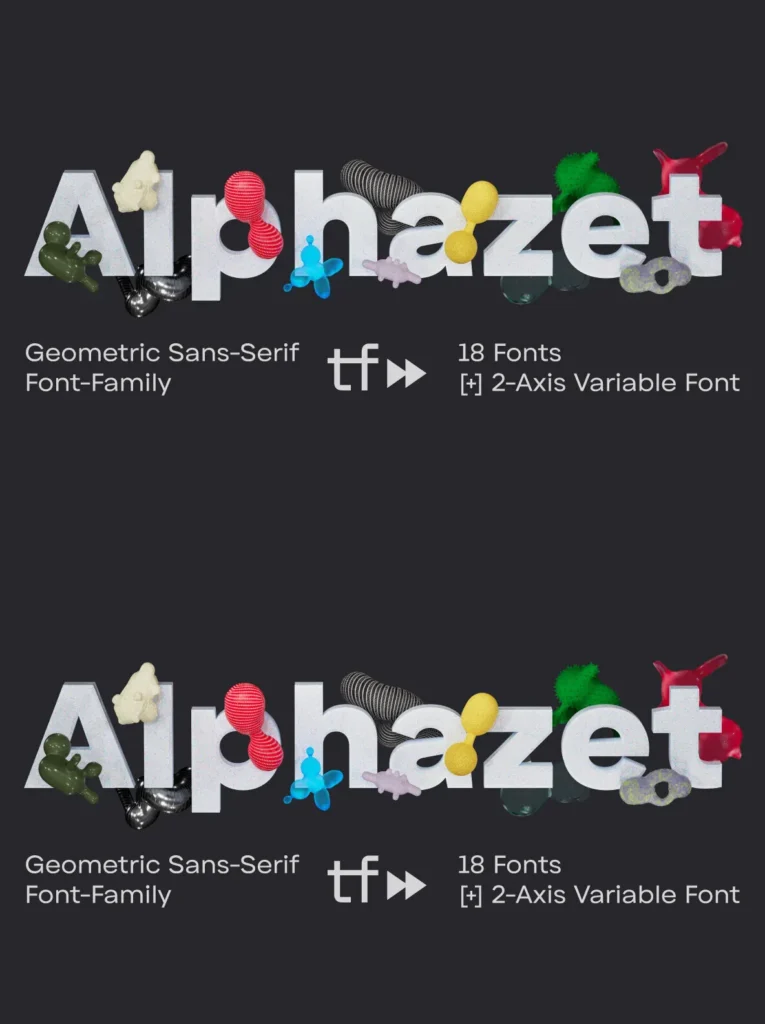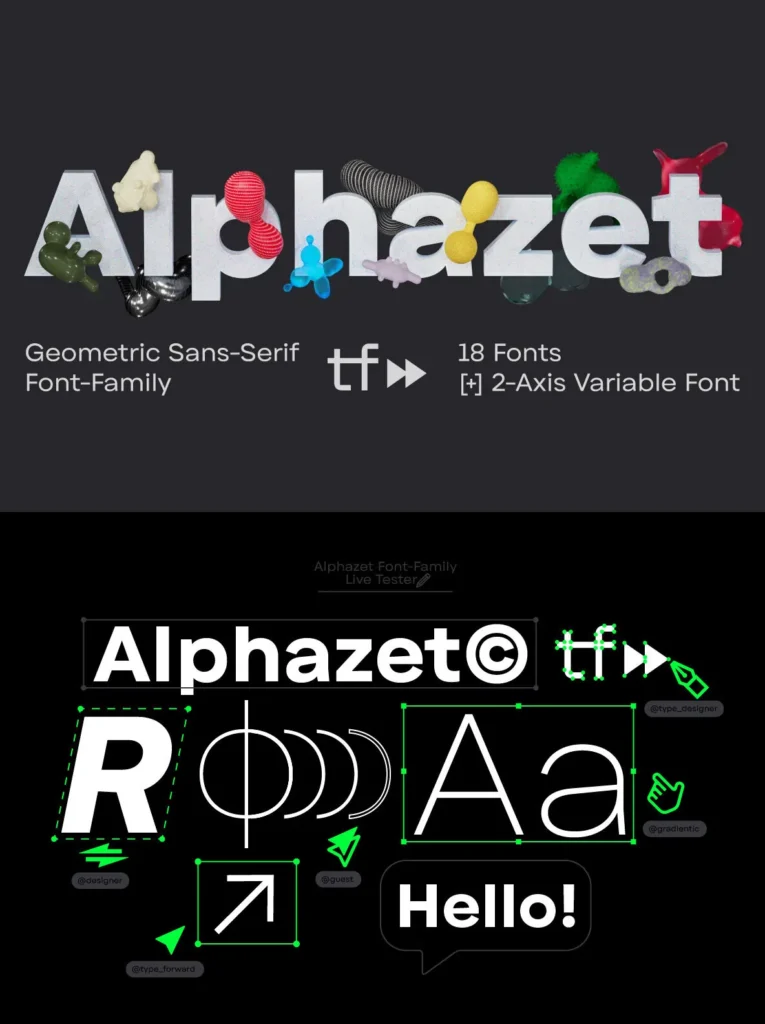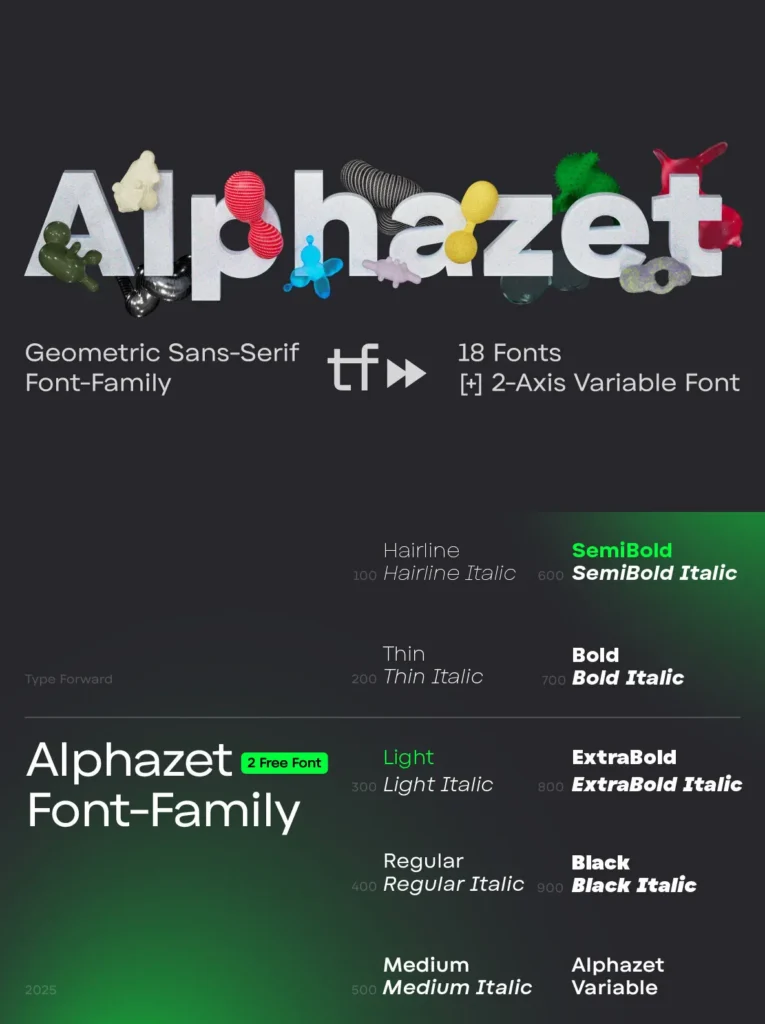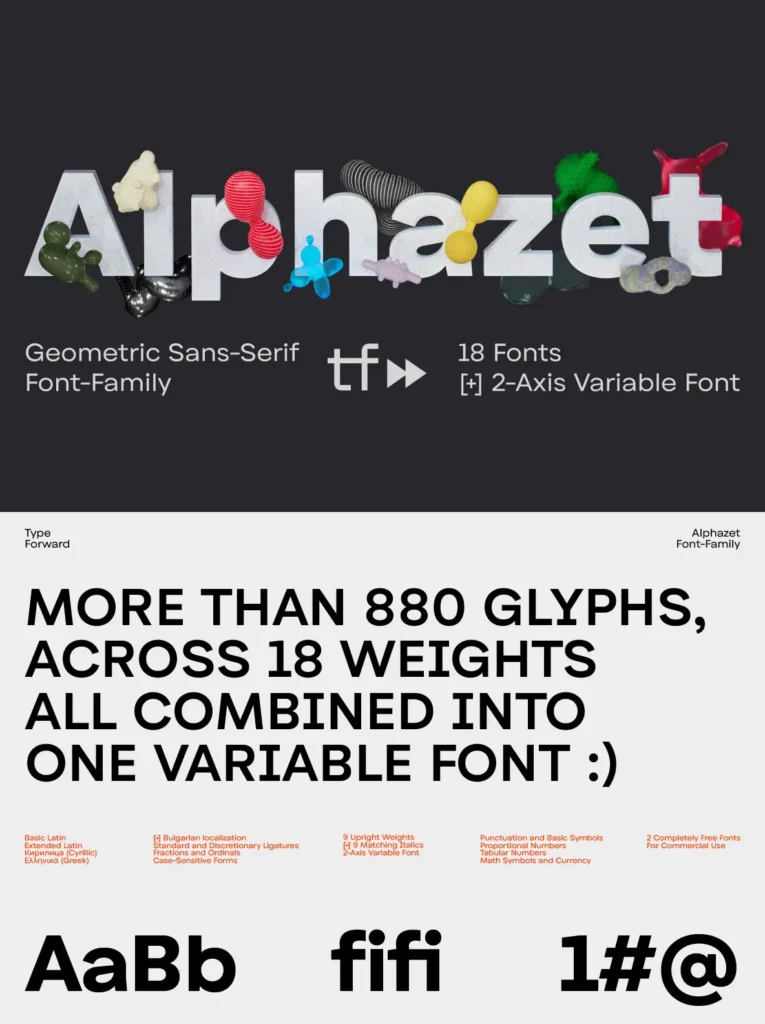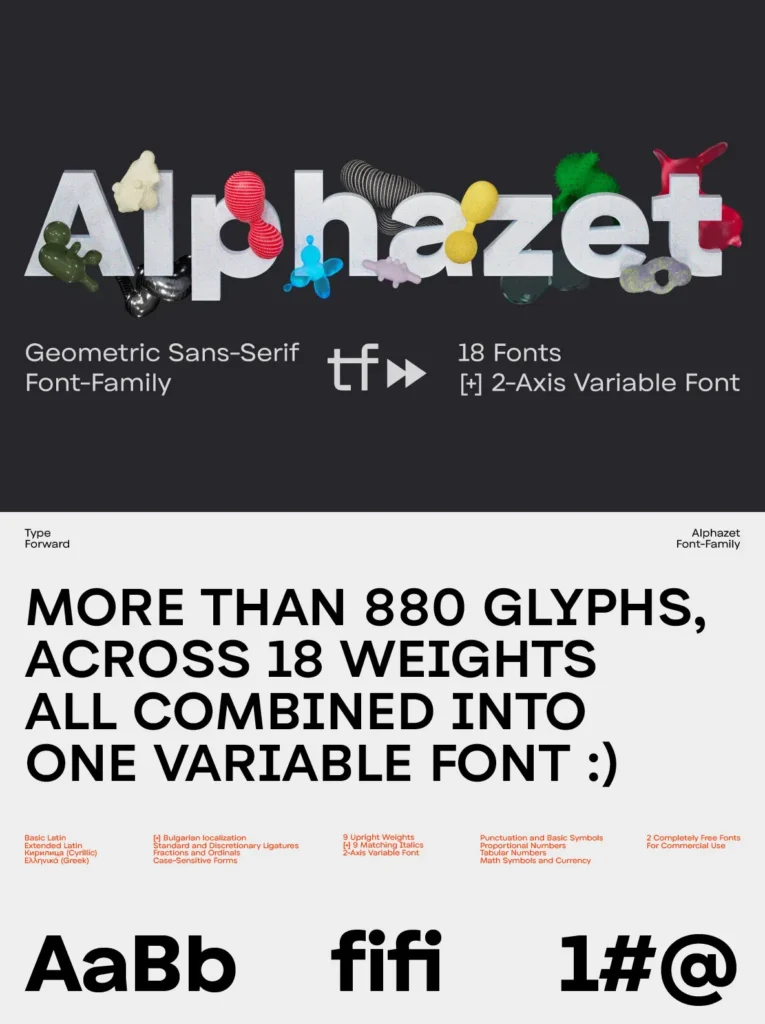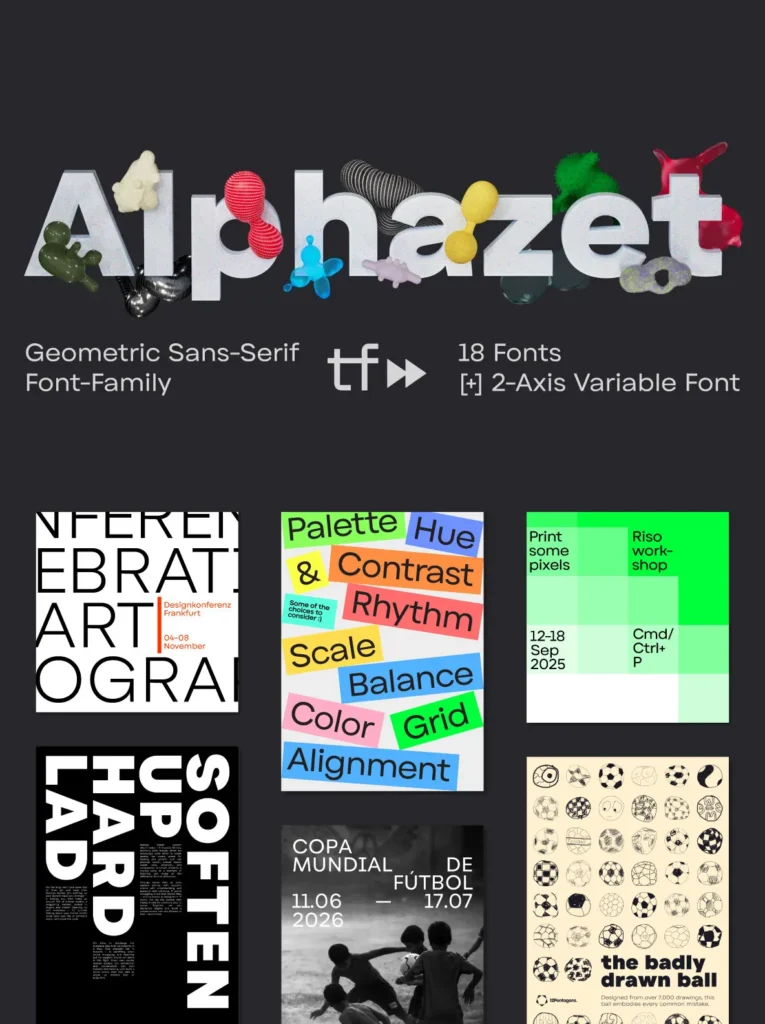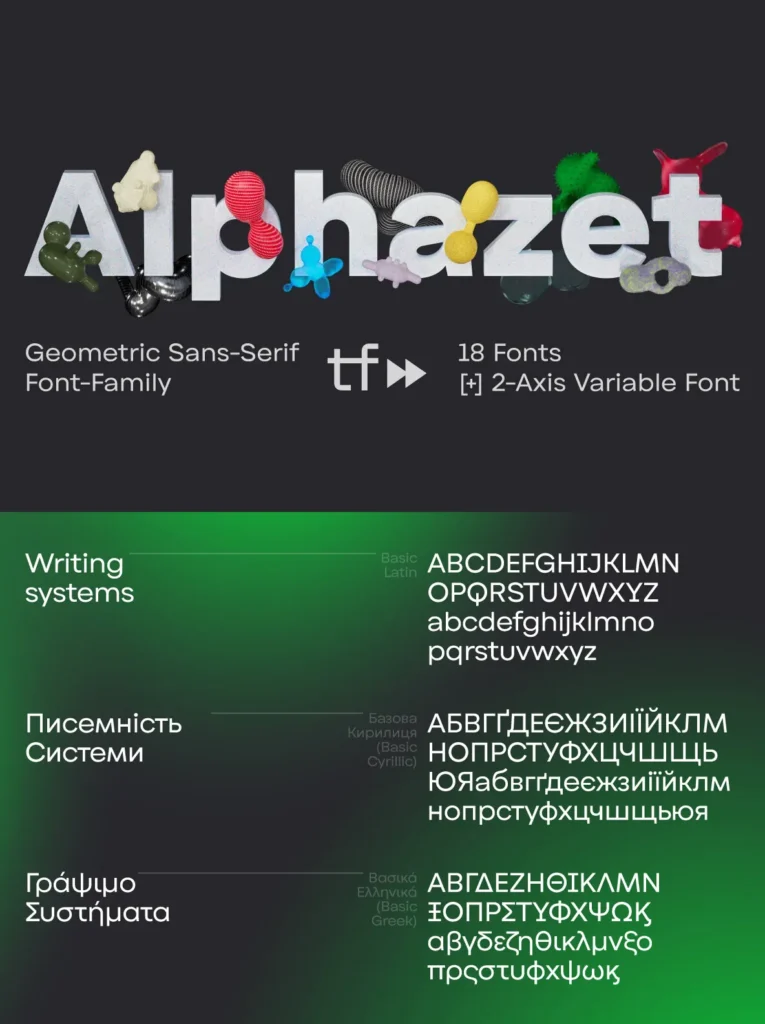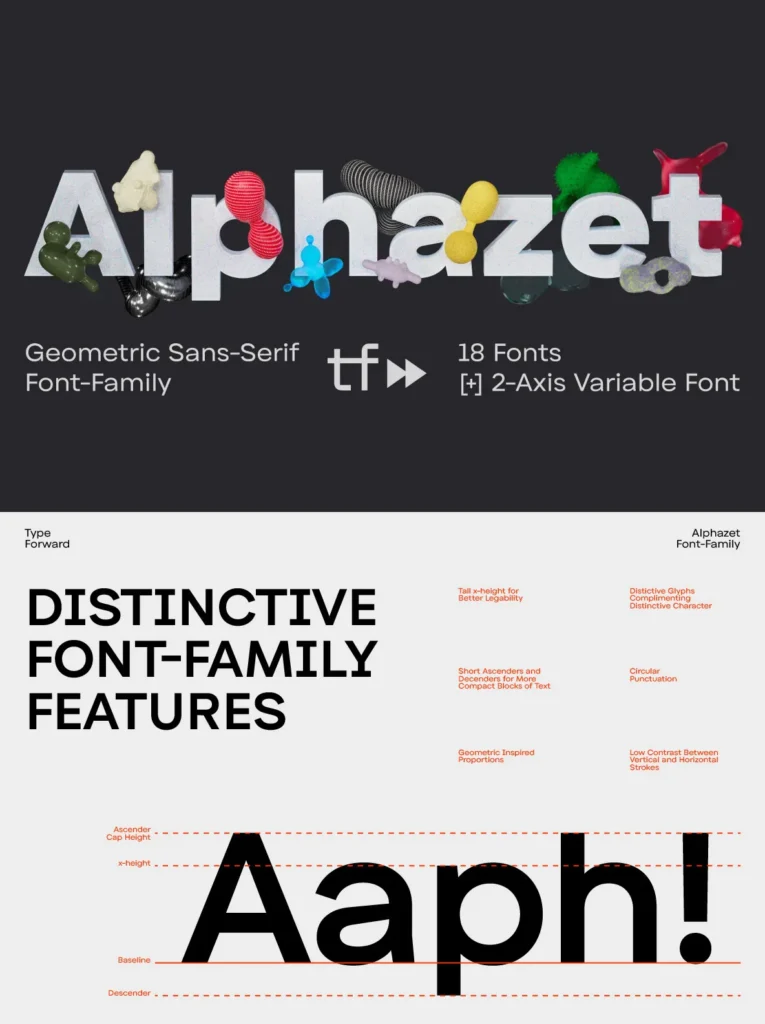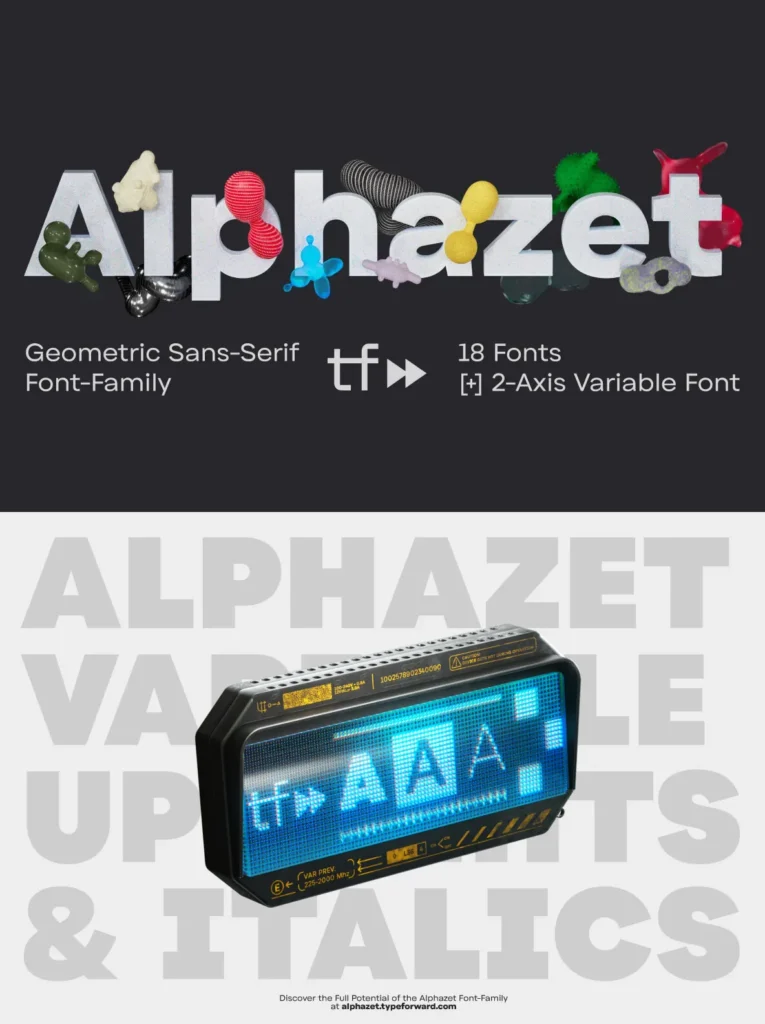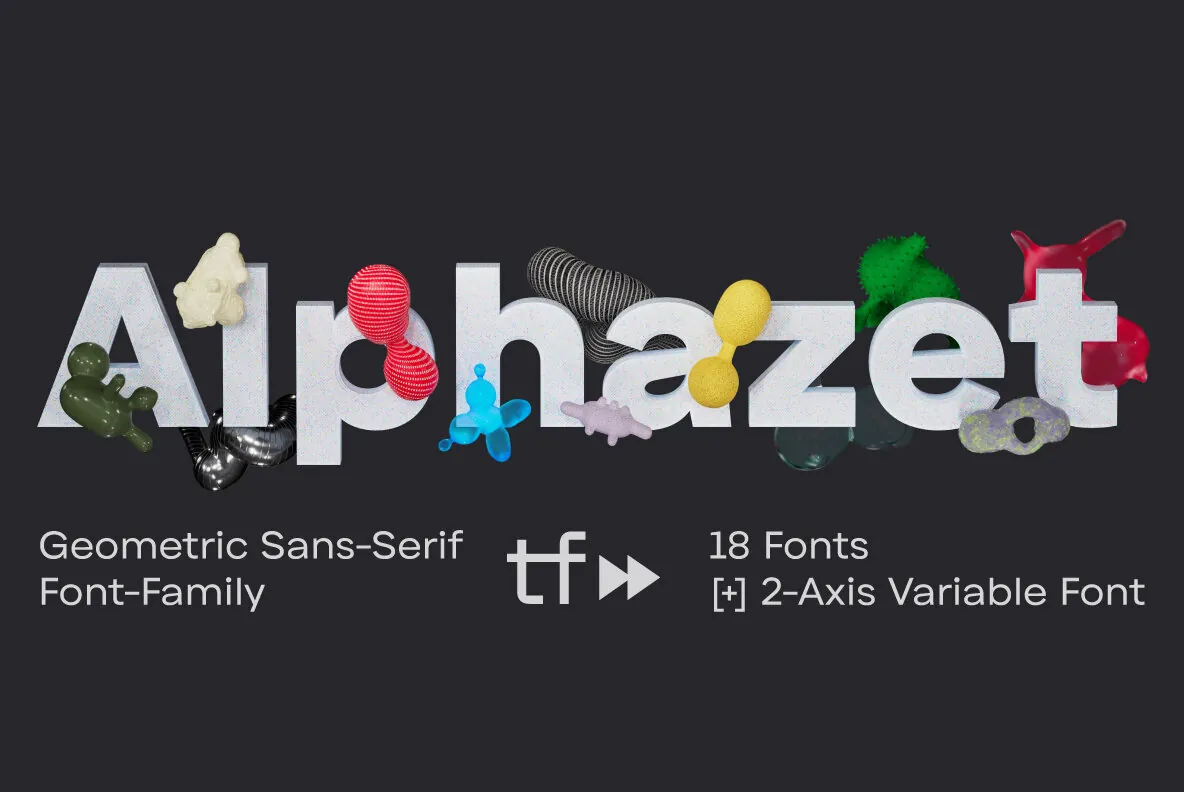
Alphazet: Geometric Sans-Serif with Modern Appeal
Alphazet is a geometric sans-serif typeface characterized by minimal stroke contrast and a high x-height. This modern font, crafted in collaboration with Luboslav Boyanov, exudes a confident and monolithic presence. Its slightly wider proportions enable both prominent headlines and extended text applications with equal effectiveness.
Embodying pure geometric shapes, Alphazet emphasizes functionality. With its tall x-height and short ascenders and descenders, it ensures space-efficient design. The typeface maintains optical consistency through balanced glyphs, achieving a harmonious texture across lines of text.
Features:
Minimal stroke contrast with slightly wider letterforms
Subtle diagonal angles in select letters for added interest
Conventional geometric sans-serif forms for clarity
9 weights ranging from Thin to Black, with matching oblique italics
Supports over 220 languages, including Extended Latin, Cyrillic, and Greek
OpenType features such as ligatures, stylistic sets, and more
Alphazet is designed for diverse applications. Its tall x-height and optimal spacing make it ideal for body text, while its robust and balanced visual identity suits headlines and posters marvelously.